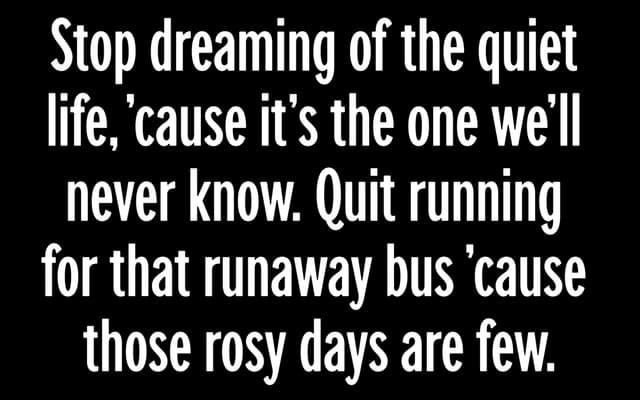
Carnaby Street
A condensed display face with mod-era flavour, sold in three stylistic variants: clean, rough and blowout.
Inspired by the narrow, bustling character of London's Carnaby Street and its association with 1960s mod culture, this condensed display typeface comes in three variants: Clean for sharp, polished use; Rough for a worn, printed texture; and Blowout for a more distressed look. The family includes 294 glyphs with over 30 alternate characters and ligatures, giving considerable flexibility for headline and decorative work. Best suited to editorial, branding and event design where a retro British flavour is wanted.
A condensed display typeface with a mod/retro flavour, offered in clean, rough and blowout variants. Its narrow proportions and decorative character place it firmly in the display category.